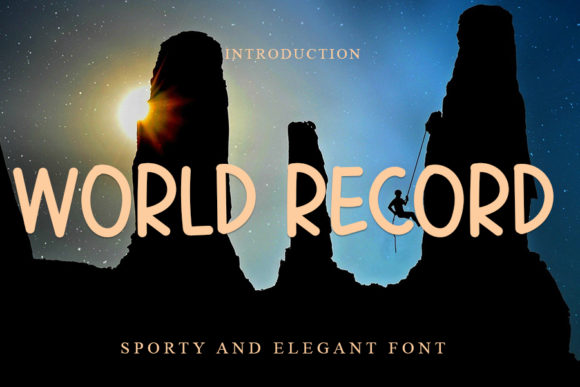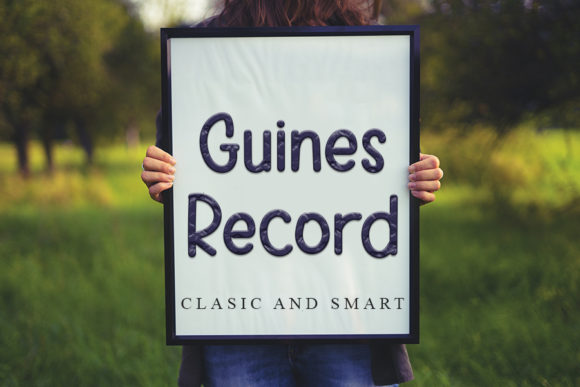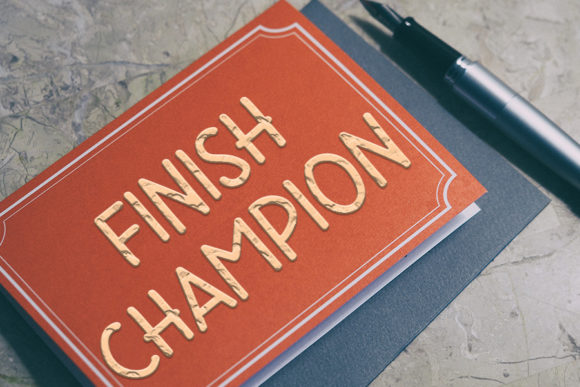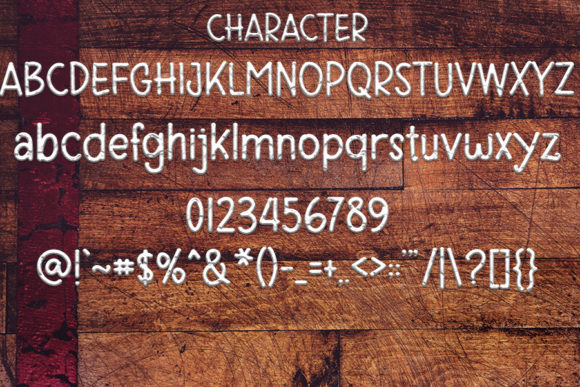
World Record Font
About World Record Font
World Record is a simple, all round and clean handwritten font. Its flexibility and neat style will brighten up each of your designs. Have fun with this cool font and explore its endless variations.